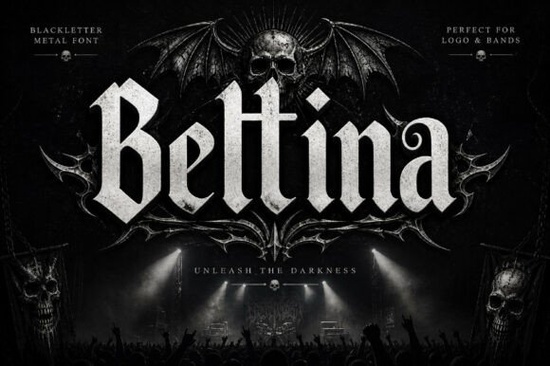
The Beltina font is a bold gothic blackletter typeface designed for projects that need a strong medieval or vintage presence. It combines traditional blackletter letterforms with defined edges and prominent vertical strokes, giving text a distinctive, old-world character. If you work on branding, print-on-demand designs, or event materials, this font fills a specific gap it looks historic without feeling outdated.
Unlike some decorative typefaces that sacrifice legibility for style, Beltina keeps its letterforms readable even at display sizes. That balance between ornament and clarity is what makes it practical for real design work, not just mood boards.
What kind of projects does Beltina work best for?
Blackletter fonts tend to carry a specific mood authoritative, classic, sometimes rebellious. Beltina leans into that energy and works well across a range of creative applications:
- Logo design especially for brands with a heritage, artisan, or luxury feel
- Poster and flyer layouts music events, medieval festivals, or themed parties
- Album covers rock, metal, folk, and gothic genres pair naturally with blackletter type
- Packaging and labels craft beer, coffee, spirits, or handmade goods
- T-shirt and merch designs a strong fit for print-on-demand sellers looking for bold, statement typography
- Tattoo-inspired graphics the gothic style translates well to flash sheets and custom artwork
- Social media graphics and thumbnails high-impact headlines that grab attention
If you're building out a collection of blackletter fonts for display projects, Beltina is a solid addition that covers a specific aesthetic territory many designers find useful.
What characters and features are included?
Beltina comes with both uppercase and lowercase letters, numbers, and standard punctuation. That full character set means you're not limited to headline-only use you can set short paragraphs, pricing, dates, and other text elements without switching to a secondary font.
It's built for display and headline use rather than long-form body copy, which is typical for blackletter typefaces. For best results, pair it with a clean sans-serif or serif font for supporting text so the gothic styling stays impactful without overwhelming the layout.
Is Beltina readable enough for commercial projects?
This is a fair question with any blackletter font. The ornate strokes and decorative forms can sometimes make letters hard to distinguish at smaller sizes. Beltina handles this well the letterforms are structured clearly enough to read at typical poster, packaging, and merch sizes. That said, it's not designed for fine print or long paragraphs. Use it where it shines: big, bold, and intentional.
For print-on-demand sellers, readability at a glance matters. A customer scrolling through a marketplace needs to understand the text on a t-shirt mockup within seconds. Beltina's defined strokes and consistent weight help with that.
How does Beltina compare to other gothic typefaces?
There's no shortage of blackletter and gothic fonts available, but not all of them strike the same balance between decorative flair and practical usability. Some lean too far into illegibility. Others feel generic. Beltina sits in a useful middle ground it has enough ornamental detail to feel authentic, but its structure keeps it functional for real-world design.
It works equally well in print and digital media, which is helpful if your project spans multiple formats say, a poster design that also needs to look good as a web banner or social post.
Tips for pairing Beltina with other fonts
A gothic display font like Beltina pairs best with something clean and understated. Here are a few pairing ideas:
- Simple sans-serifs a geometric or neo-grotesque sans-serif provides clean contrast
- Classic serifs for a fully traditional aesthetic, pair with a refined serif for body text
- Handwritten or script fonts adds a softer, personal touch alongside the bold gothic forms
Avoid pairing Beltina with other heavily decorative fonts. Too many ornate typefaces competing for attention creates visual noise and weakens the overall design.
Quick checklist before you start designing
- ✅ Use Beltina at larger sizes headlines, logos, and display text
- ✅ Pair it with a clean, readable font for body copy
- ✅ Test readability at your actual output size before finalizing
- ✅ Consider the mood you want gothic blackletter signals tradition, authority, and edge
- ✅ Check the full character set so you know exactly what's available